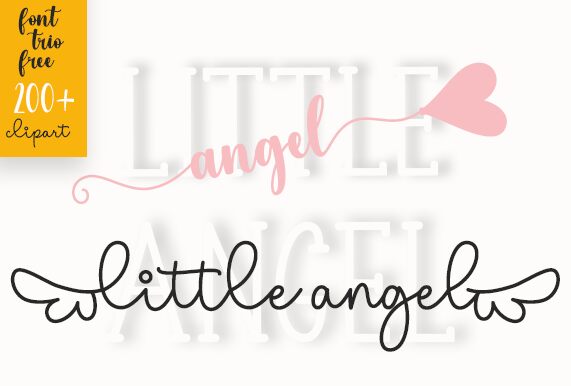
Little Angel Display
Little Angel Display, a creation of Fillo Graphic, is a delightful semi-light font with a handwritten touch. Its condensed width adds an elegant charm to any project.
This font is perfect for creating eye-catching headlines, posters, and invitations that demand attention. The playful yet sophisticated style of Little Angel Display makes it suitable for children's books and websites, as well as fashion magazines and branding materials.
Let your imagination soar with this unique font that will add a touch of whimsy to your designs.